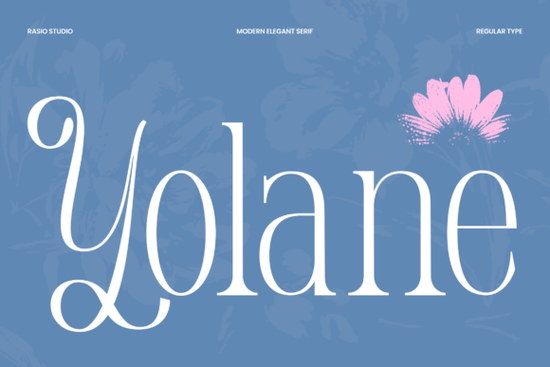
When it comes to adding a touch of elegance and sophistication to your design projects, the Yolane Font is an excellent choice. This refined serif typeface stands out with its delicate contrast, graceful proportions, and sophisticated character details, making it perfect for a wide range of creative applications.
Why Choose Yolane Font for Your Design Projects?
Yolane Font is designed to bring refinement and visual charm to any project. Whether you're working on branding, editorial design, packaging, invitations, or promotional materials, Yolane's graceful letterforms and decorative details can make a significant difference. The font's versatility allows it to create striking logos, wordmarks, and headlines, while its intricate details add character to magazine layouts, product labels, stationery, and social media graphics.
How Does Yolane Font Compare to Other Serif Fonts?
While there are many serif fonts available, Yolane Font distinguishes itself with its unique blend of delicacy and sophistication. For instance, Kayana Font offers a more traditional and classic look, whereas Blades of Fortunes Font has a bolder and more dramatic style. In comparison, Yolane strikes a balance between elegance and modernity, making it a versatile choice for various design needs.
Using Yolane Font in Branding and Editorial Design
One of the standout features of Yolane Font is its ability to enhance branding and editorial design. Its refined and graceful appearance makes it ideal for creating memorable logos and wordmarks. When used in editorial design, Yolane adds a touch of sophistication to magazine layouts and book covers, making the text not just readable but also visually appealing.
Yolane Font in Packaging and Invitations
For packaging and invitation designs, Yolane Font brings a level of elegance that can set your products apart. Its delicate and decorative details make it perfect for high-end product labels and luxury packaging. Similarly, when used in invitations, Yolane adds a touch of class and refinement, making any event feel special and well-considered.
Yolane Font in Promotional Materials and Social Media Graphics
Creating promotional materials and social media graphics requires a font that can grab attention while maintaining a professional and elegant look. Yolane Font fits this need perfectly. Its graceful letterforms and decorative elements make it ideal for headlines and callouts, helping your promotions stand out and engage your audience effectively.
Tips for Using Yolane Font Effectively
- Pair with Complementary Fonts: To maximize the impact of Yolane, pair it with complementary sans-serif or script fonts. This combination can create a balanced and visually appealing design.
- Use in Headlines and Key Text: Yolane works best in headlines, titles, and key text areas where its elegant and refined style can be fully appreciated.
- Experiment with Sizes and Styles: Don't be afraid to experiment with different sizes and styles of Yolane. This can help you find the perfect fit for your specific design needs.
By incorporating Yolane Font into your design toolkit, you can add a touch of elegance and sophistication to your projects, making them stand out and leave a lasting impression.